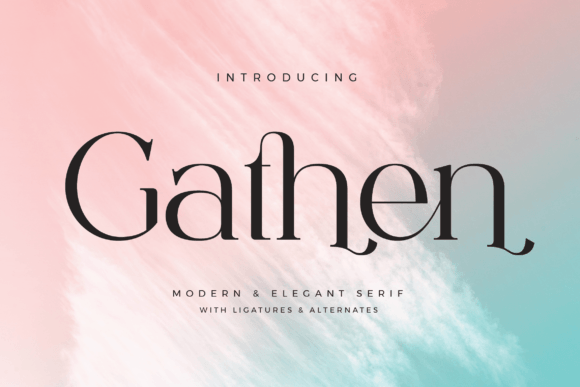
Gathen Font: The Elegant Serif Typeface for Sophisticated Designs
The world of typography is vast and diverse, with numerous font styles to choose from, each with its unique characteristics and uses. Among these, serif typefaces hold a special place for their classic and elegant appeal. One such serif typeface that has garnered attention for its minimalist yet sophisticated design is the Gathen Font. Inspired by the famous minimalist logo, Gathen is an elegant serif typeface that has become a popular choice for designing templates, brochures, videos, advertising branding, logos, and more.
What is Gathen Font?
Gathen Font is a meticulously crafted serif typeface that embodies elegance and simplicity. Its design is inspired by minimalist principles, making it perfect for projects that require a touch of sophistication and refinement. The font features clean lines, subtle curves, and a balanced structure, which contribute to its readability and aesthetic appeal.
The Inspiration Behind Gathen Font
The design of Gathen Font draws inspiration from the famous minimalist logo, which is known for its simplicity and elegance. The creators of Gathen aimed to capture the essence of this logo and translate it into a versatile typeface that could be used across various design projects. The result is a font that exudes a sense of calmness and professionalism, making it suitable for a wide range of applications.
Uses of Gathen Font
Gathen Font’s versatility and elegant design make it an excellent choice for various design projects, including:
- Templates: Gathen Font is perfect for creating professional-looking templates for presentations, reports, and other documents.
- Brochures: The font’s readability and aesthetic appeal make it an excellent choice for designing brochures that require a touch of elegance.
- Videos: Gathen Font can be used to create engaging video titles, subtitles, and overlays that add a professional touch to video content.
- Advertising Branding: The font’s sophisticated design makes it suitable for advertising branding, including logos, taglines, and marketing materials.
- Logos: Gathen Font can be used to create simple yet effective logos that convey a sense of professionalism and elegance.
Typographic Features of Gathen Font
Gathen Font boasts several typographic features that make it a versatile and elegant typeface:
- Serif Design: The font features a classic serif design, which adds a touch of elegance and sophistication to any design project.
- Clean Lines: Gathen Font’s clean lines and subtle curves contribute to its readability and aesthetic appeal.
- Balanced Structure: The font’s balanced structure ensures that it remains legible even at small sizes.
- Wide Range of Weights: Gathen Font is available in a range of weights, making it suitable for various design applications.
Benefits of Using Gathen Font
Using Gathen Font in design projects offers several benefits:
- Elegance and Sophistication: The font’s elegant design adds a touch of sophistication to any design project.
- Readability: Gathen Font’s clean lines and balanced structure ensure that it remains legible even at small sizes.
- Versatility: The font’s versatility makes it suitable for various design applications, from templates and brochures to logos and advertising branding.
- Professionalism: Gathen Font’s sophisticated design conveys a sense of professionalism, making it perfect for projects that require a high level of expertise.
Tips for Using Gathen Font
To get the most out of Gathen Font, consider the following tips:
- Pair with Sans-Serif Fonts: Pairing Gathen Font with sans-serif fonts can create a visually appealing contrast.
- Use for Headings and Body Text: The font’s readability makes it suitable for both headings and body text.
- Experiment with Weights: Gathen Font’s range of weights offers opportunities for creative experimentation.
- Consider the Context: Consider the context in which the font will be used and adjust the design accordingly.
Gathen Font is an elegant serif typeface that offers a sophisticated and versatile design solution for various projects. Its minimalist inspiration, clean lines, and balanced structure make it perfect for designing templates, brochures, videos, advertising branding, logos, and more. By understanding the typographic features, benefits, and best practices for using Gathen Font, designers can create stunning visual content that exudes professionalism and elegance.